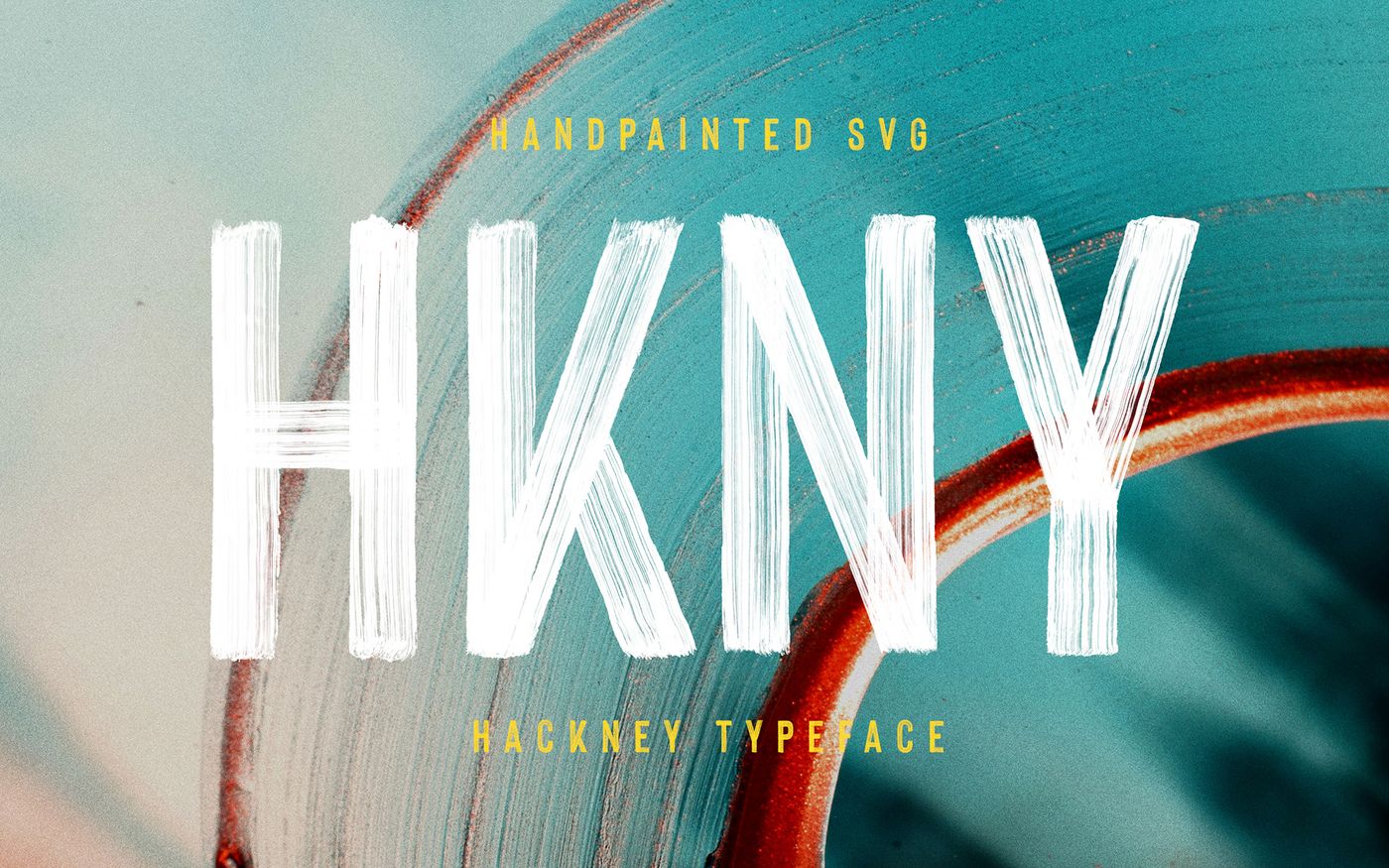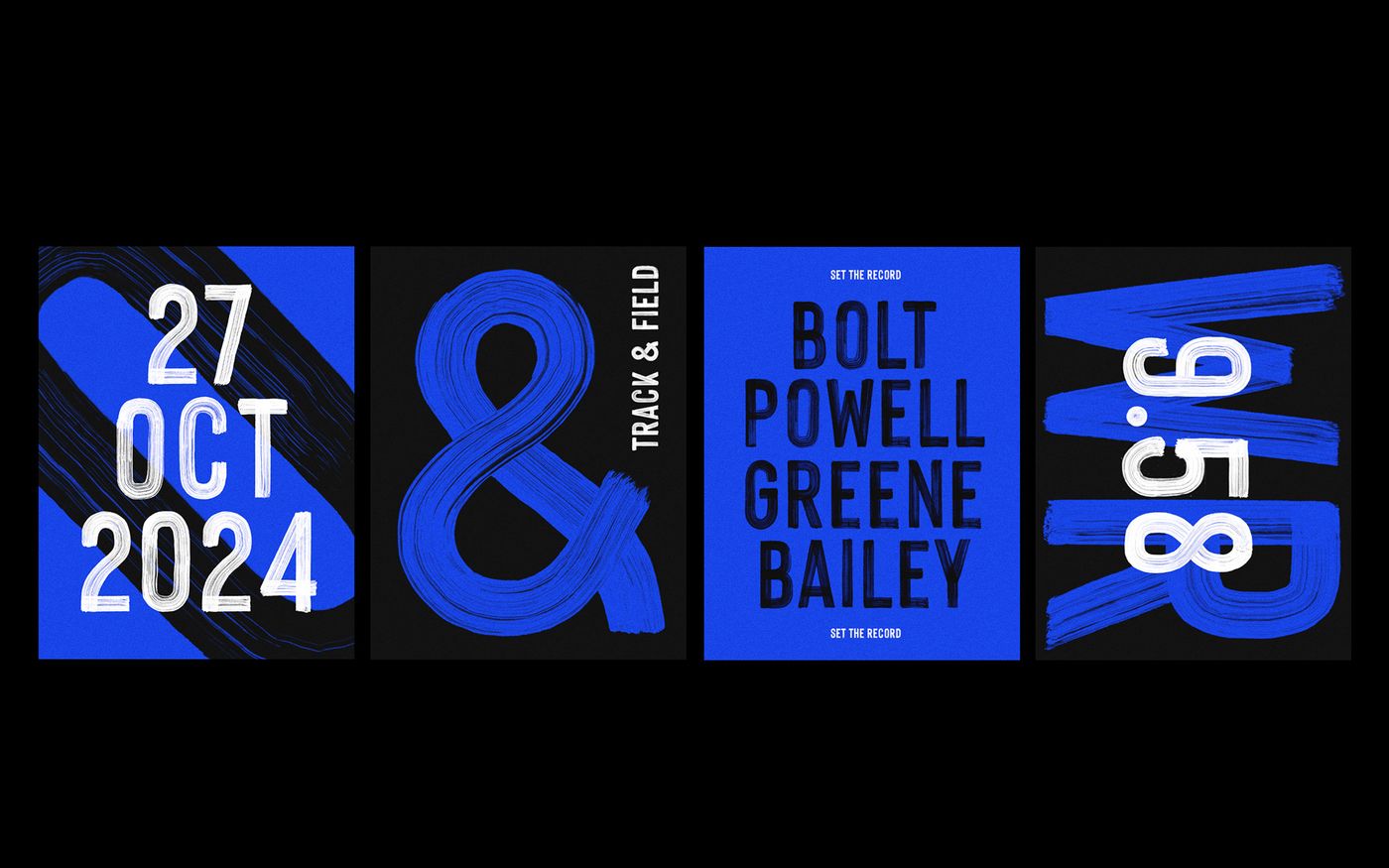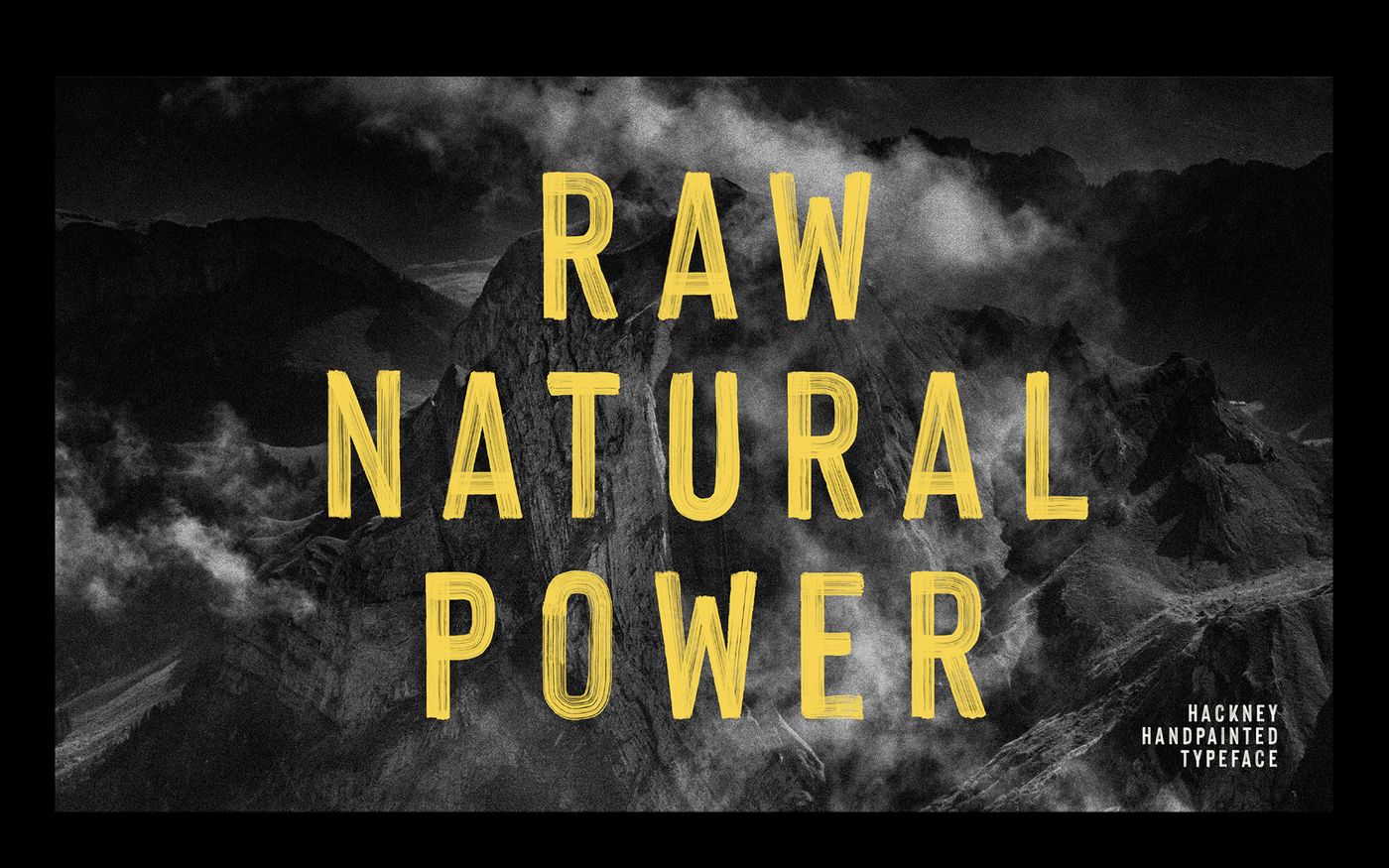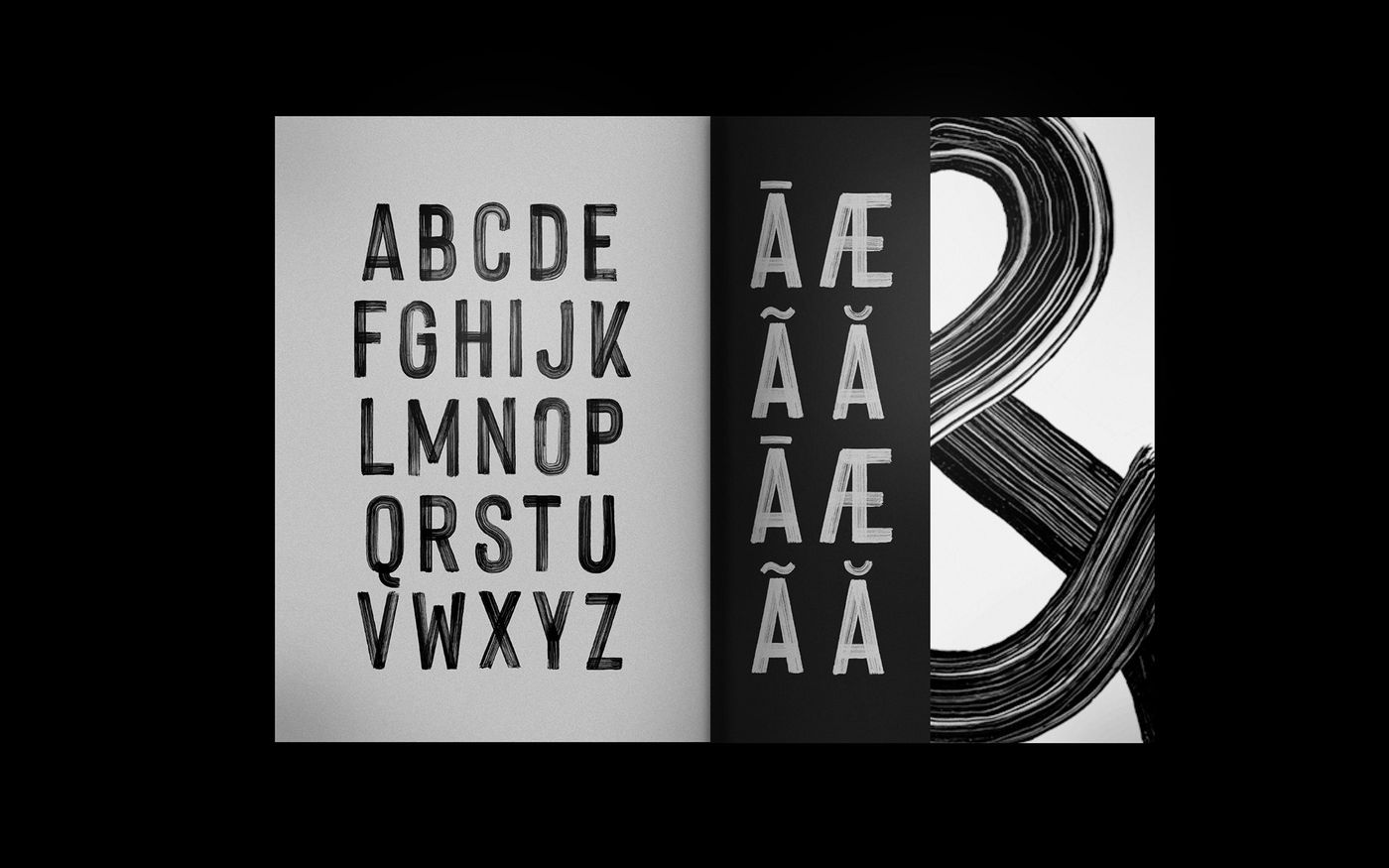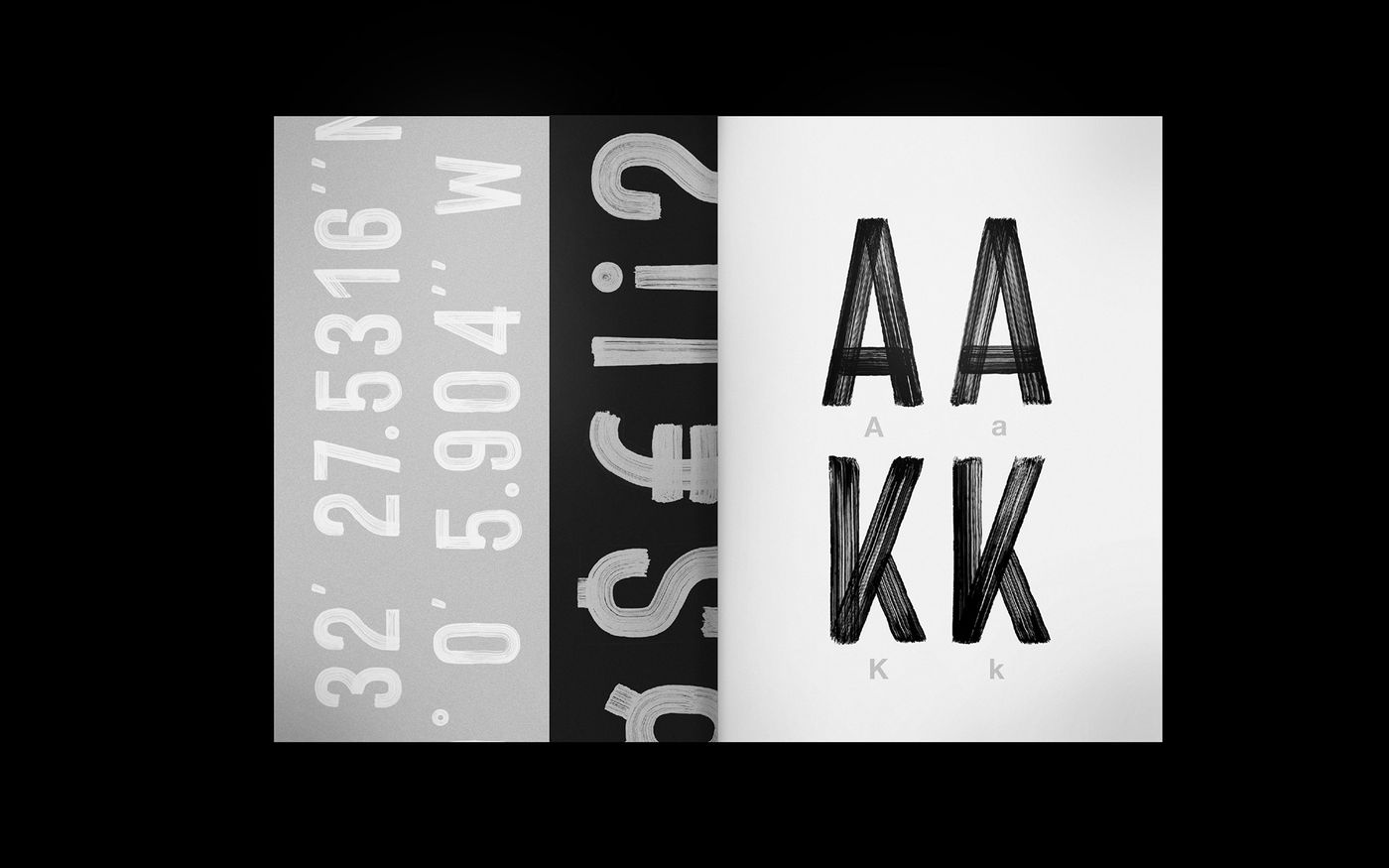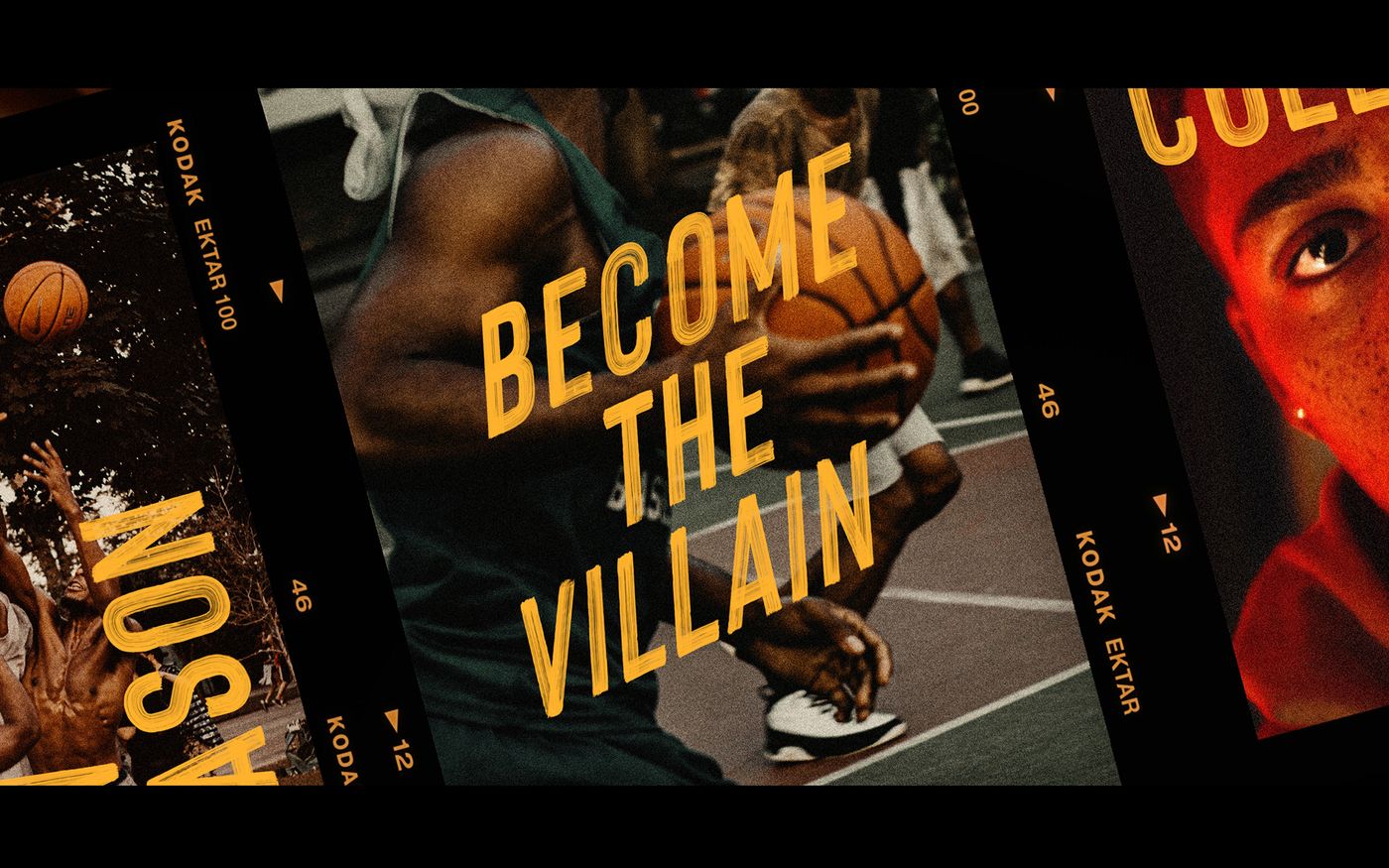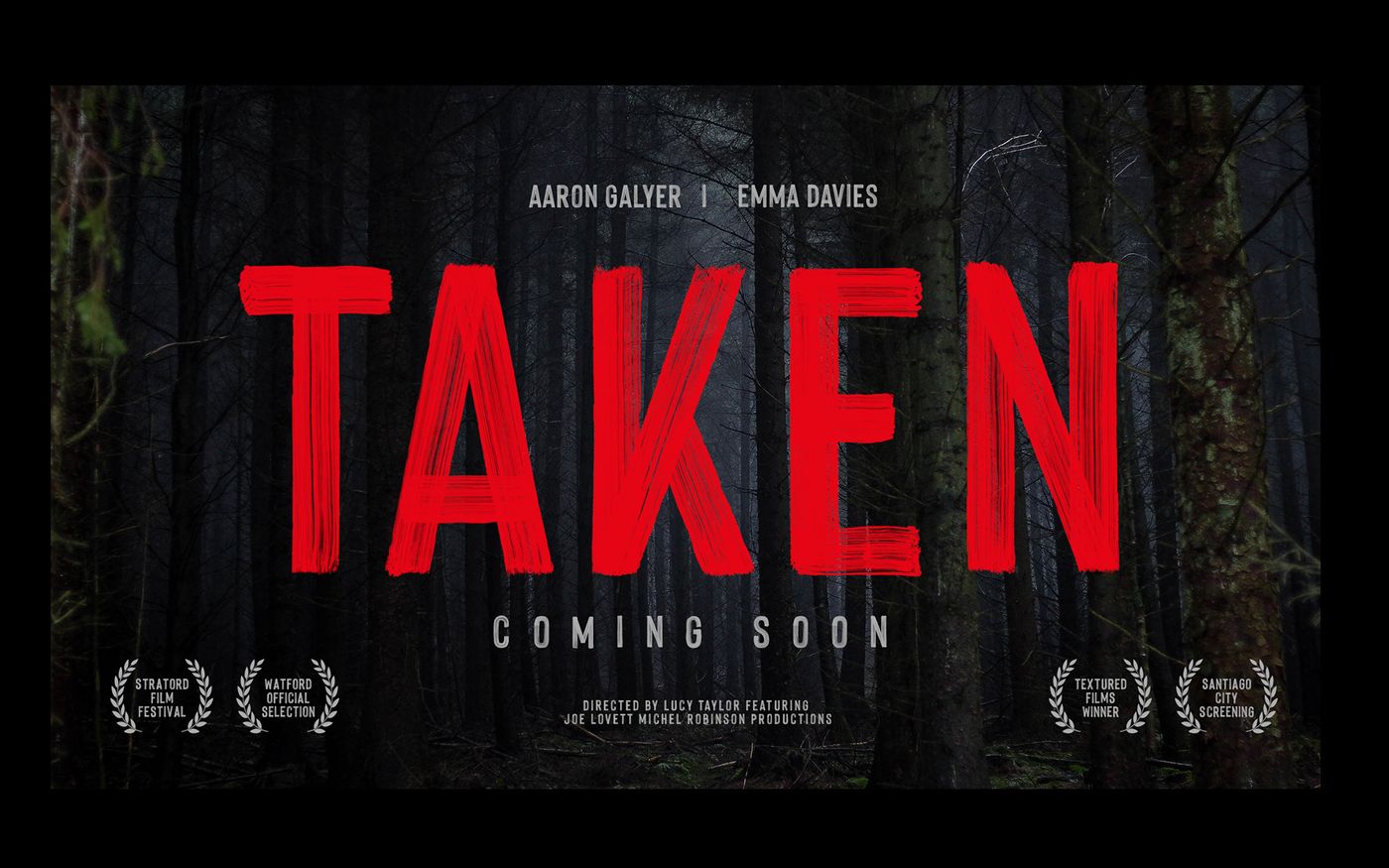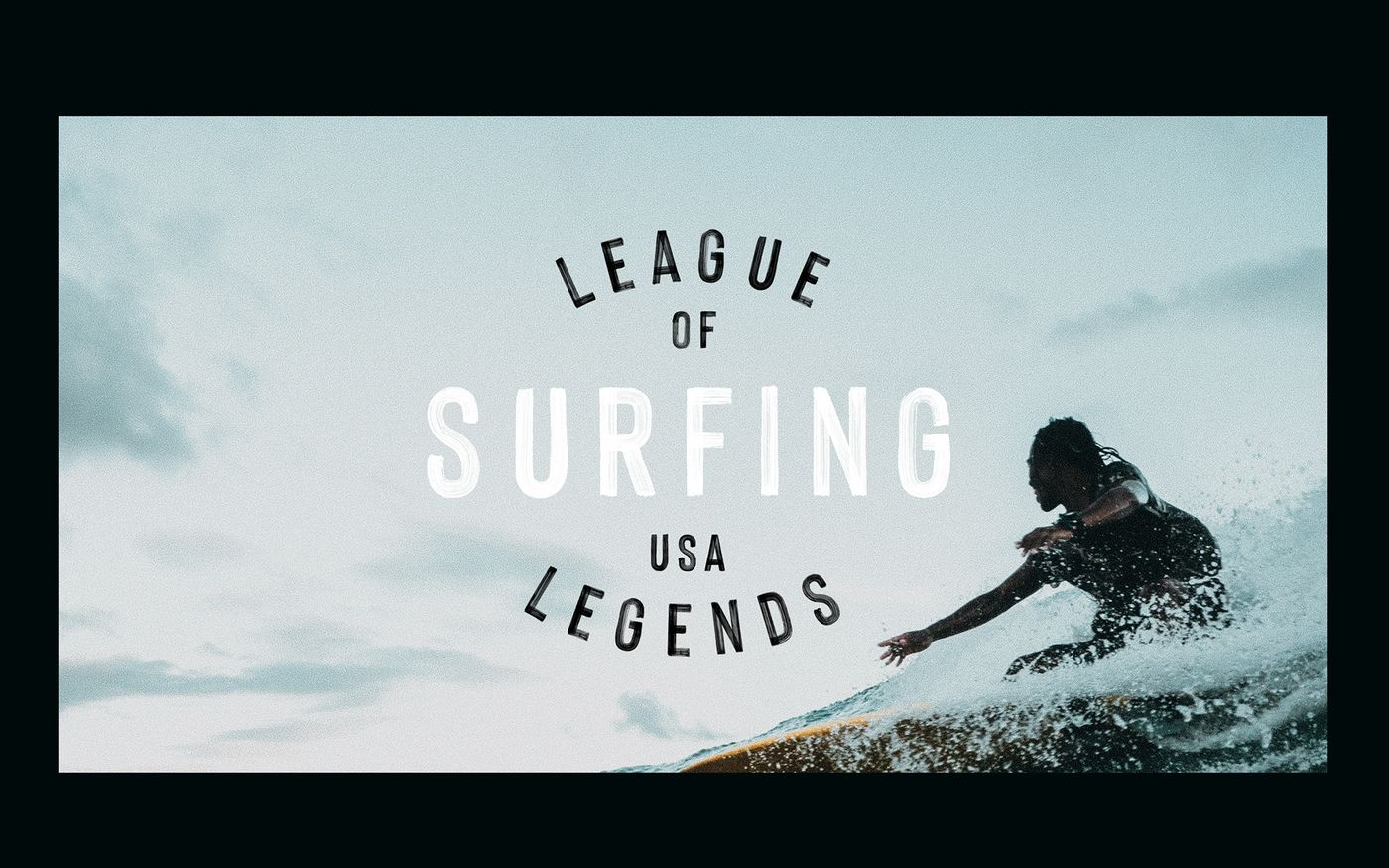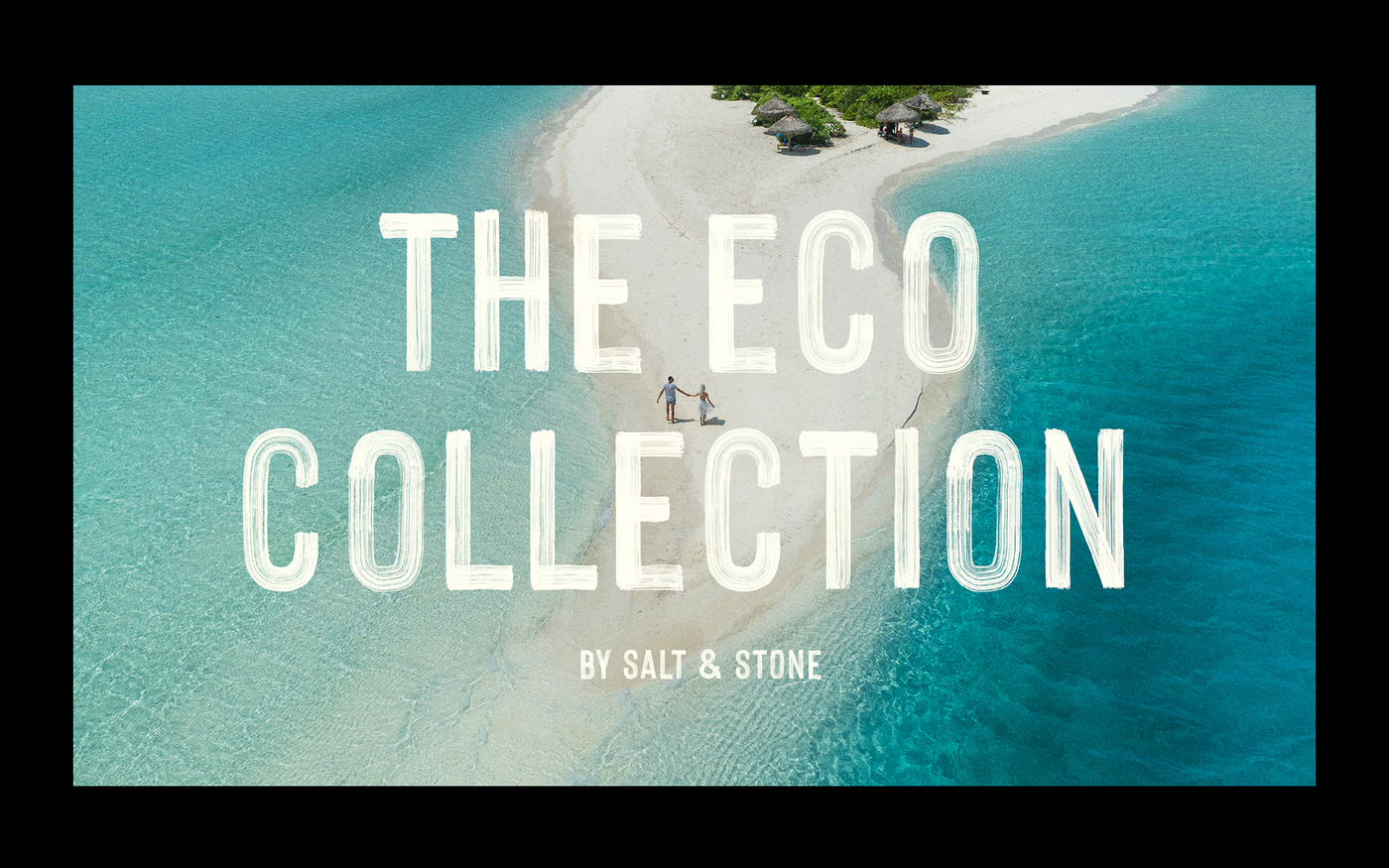
Hackney, from Ellen Luff Type Foundry, is an all-caps hand-painted gothic sans serif, perfect for branding, film and television, packaging, and editorial. Its condensed forms, marked by brushy imperfections and earthy realism, create a striking, rugged, authentic presence with raw energy and bold character. Hackney preserves the craftsmanship in every detail of the original painted strokes as a transparent texture, making a lasting impact in every application.
Hackney is a rugged all-caps hand-painted sans with bold brush textures — perfect for impactful branding, packaging, film, and editorial design.